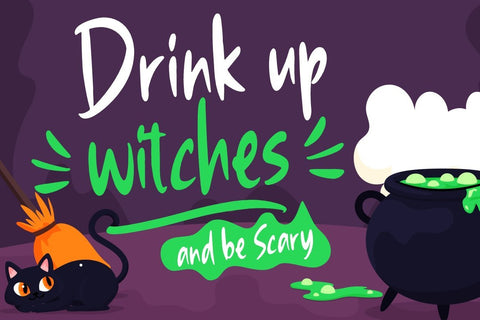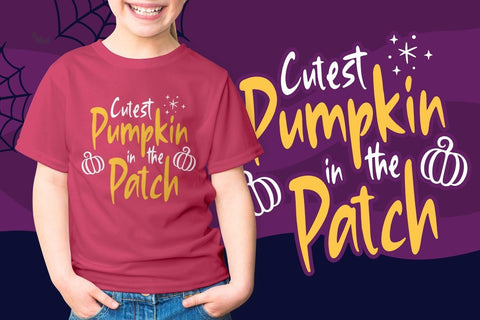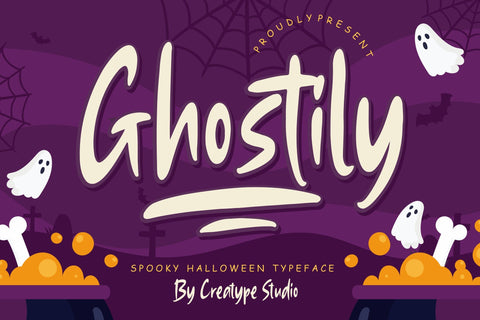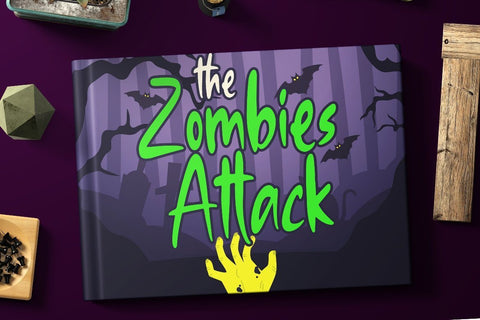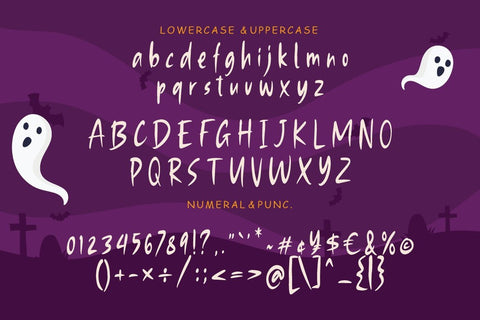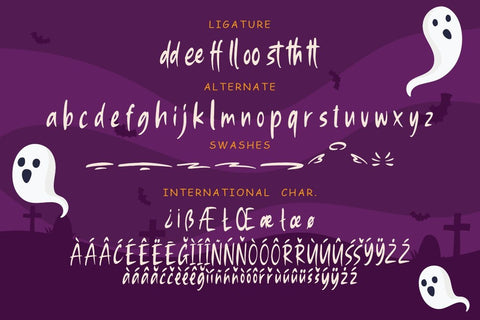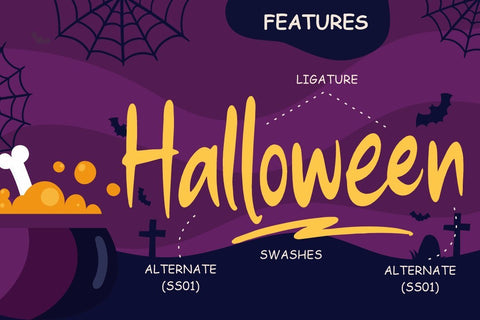
Ghostily Spooky Halloween Typeface
Ghostily a spooky fun font which perfect for halloween event and your fun project.
Ghostily is perfect for branding projects, logo, wedding designs, social media posts, advertisements, product packaging, product designs, label, photography, watermark, invitation, stationery and any projects that need handwriting taste.
- Ton of glyphs
- Ligatur & Alternate